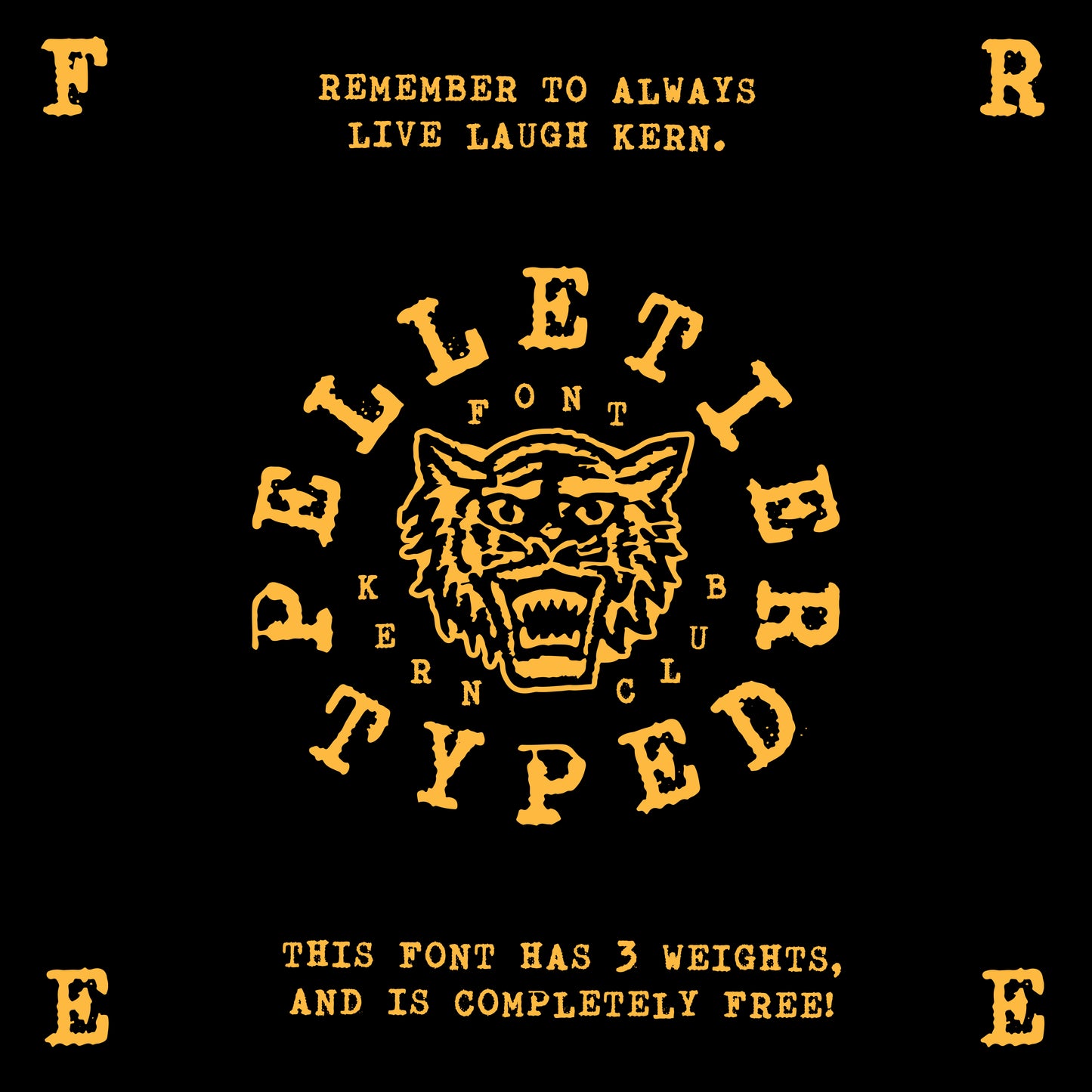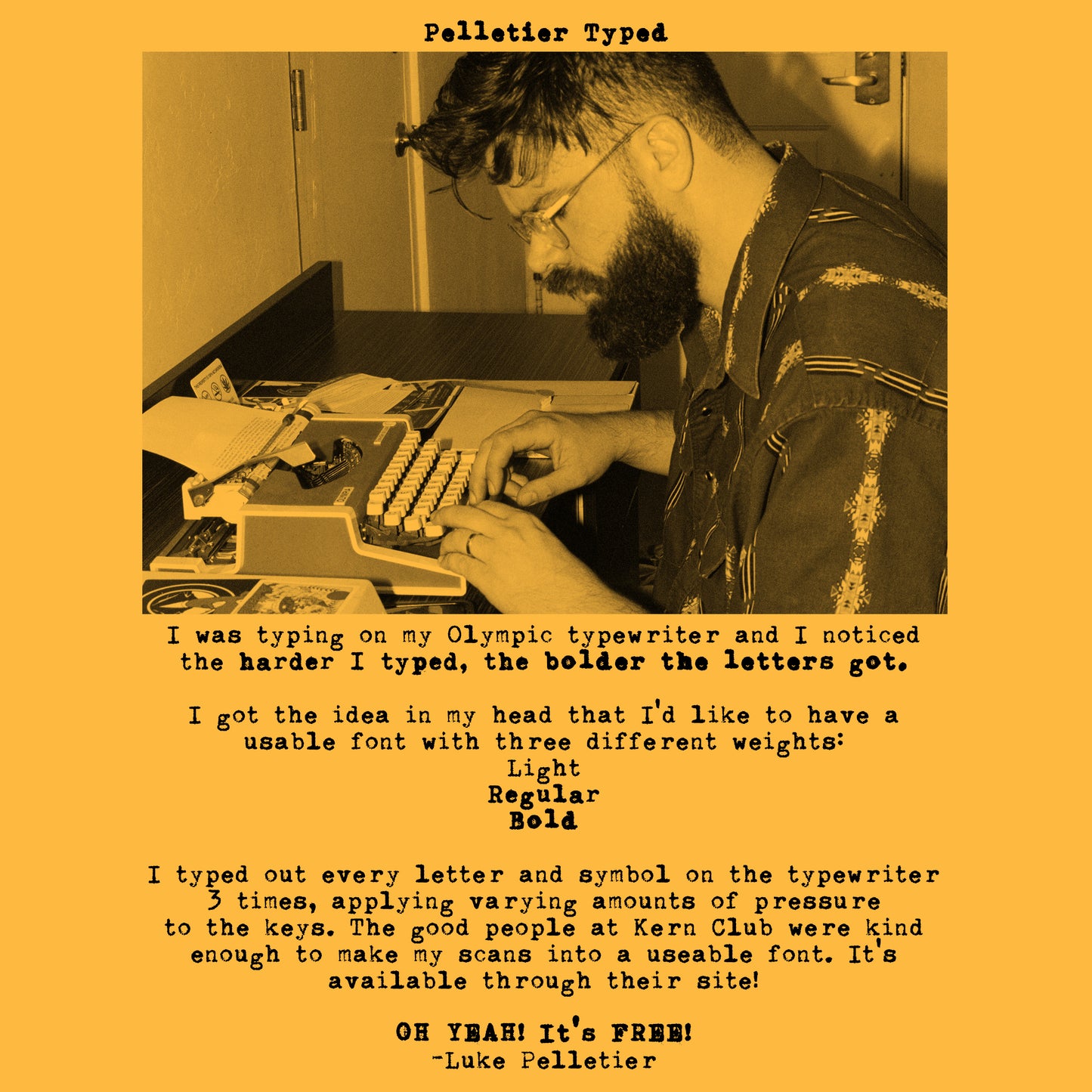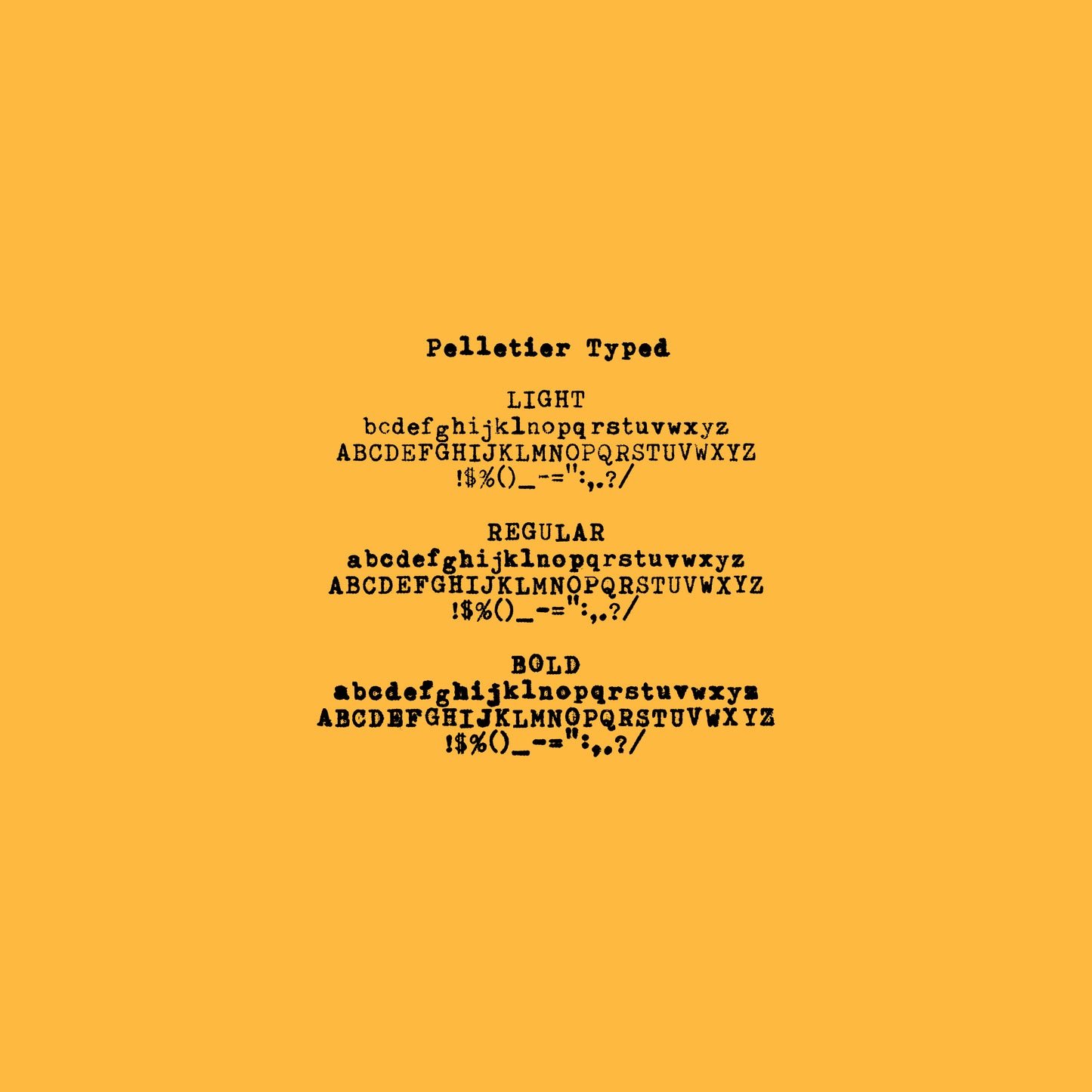
Pelletier Typed Font
Unique typewriter font designed by Luke Pelletier
- Lowercase Character Set a-z
- Includes light, regular, and bold versions (3 fonts)